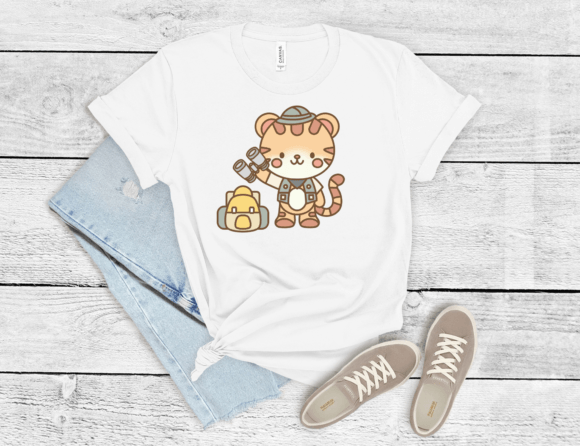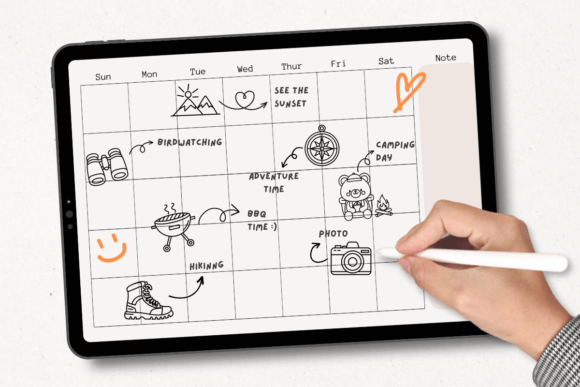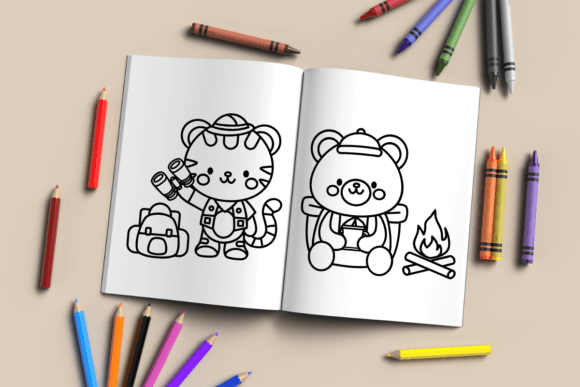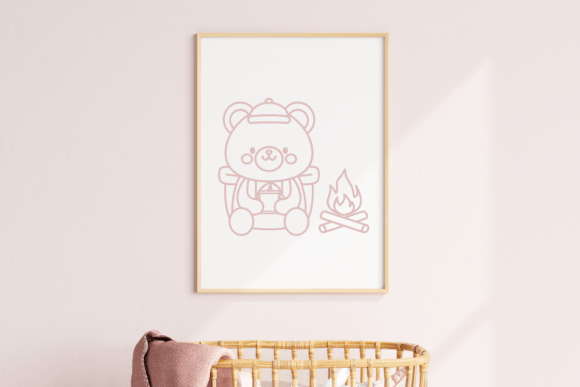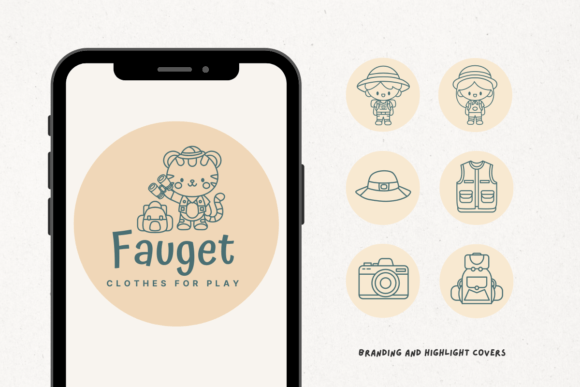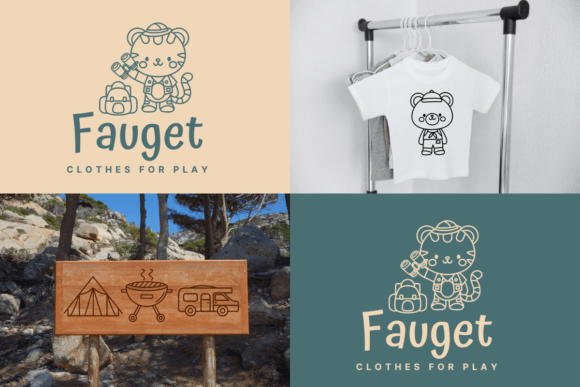
Discover the Charm of Camping Doodle Font: A Perfect Blend of Whimsy and Adventure
I still remember the design project that led me to discover the Camping Doodle Font. I was working on a camping invitation for a friend’s birthday, and I wanted to create something that captured the essence of the great outdoors. As I scrolled through font after font, nothing seemed quite right – until I stumbled upon this charming typeface. The hand-drawn illustrations of tents, campfires, and backpacks instantly transported me to a world of adventure and nostalgia. I knew right then and there that I had found the perfect fit for my project.
What I Love About Camping Doodle Font ✨
• ✅ The whimsical and rustic feel it adds to any project is unmatched.
• ✅ The font features a wide range of hand-drawn illustrations, from camping essentials to nature-inspired elements.
• ✅ It’s incredibly versatile and can be used for various design projects, from invitations to social media graphics.
• ✅ The font is easy to read and works well in both digital and print formats.
• ⚠️ Some of the illustrations may be a bit too intricate for very small font sizes.
• ⚠️ The font might not be the best choice for very formal or professional designs.
The Story Behind Camping Doodle Font
Camping Doodle Font was designed by a team of outdoor enthusiasts who wanted to capture the spirit of adventure and the beauty of nature in a unique and versatile typeface. Inspired by their own camping trips and experiences in the great outdoors, they created a font that would bring a touch of whimsy and nostalgia to any design project. The result is a charming font that instantly evokes a sense of adventure and freedom.
What type of designs is Camping Doodle Font best suited for? Camping Doodle Font is perfect for camping invitations, outdoor-themed designs, nature-inspired graphics, and any project that requires a whimsical, rustic feel.